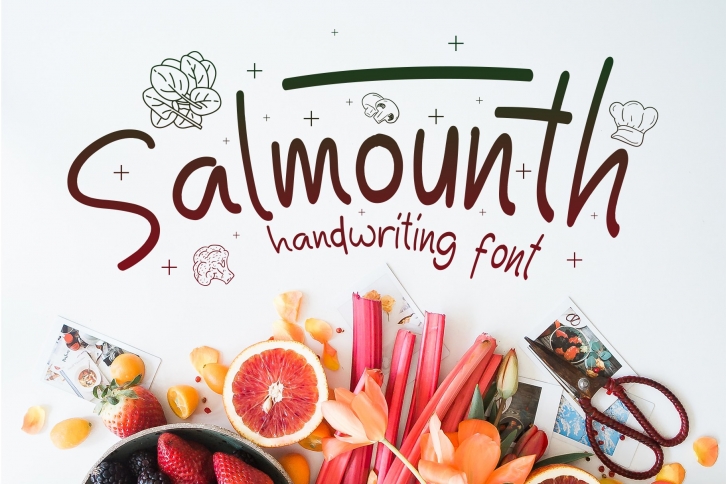
-- Original / Playful / Decorative --
Salmounth font is a sans font family Inspired by kids book cover design, we try to make it more decorative so it's can useful for any purpose. it's perfect for you to show your design or product in professional way.
USE
Salmounth font is works great in any branding, logos, magazines, films, poster, flyer, sign board, magazine,etc